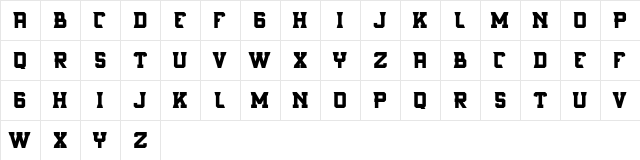
Rostter boot FREE Regular Font Preview
Rostter boot FREE Regular
Design Context for Rostter boot FREE Typeface
Rostter boot FREE offers clean, dependable letterforms without strong stylistic allegiance, making it a practical choice for designers who need flexibility.
Pro Tip: Use Rostter boot FREE in both headline and body roles to test its range before committing to a single application.